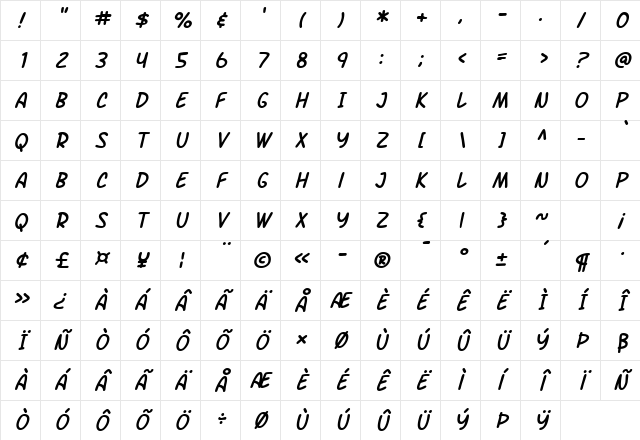
SF Arch Rival Italic Free Font
SF Arch Rival Italic
Design Context for SF Arch Rival
SF Arch Rival is a composed and adaptable typeface that performs quietly and consistently across a wide range of design contexts. The slanted form adds forward momentum and visual energy.
Pro Tip: Use SF Arch Rival for emphasis, pull quotes, and subheadings where its slanted energy can add rhythm to the layout.